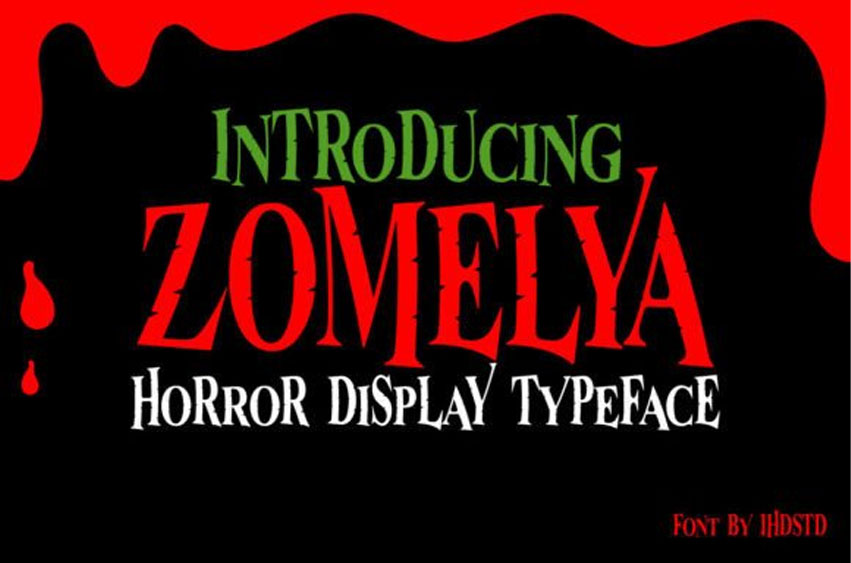
Zomelya Font is a chilling horror display font with jagged serifs and unsettling elegance, perfect for spooky season designs. Its sharp edges and distorted forms scream Halloween, haunted houses, and thriller themes.
Great for posters, horror movie titles, party invites, escape rooms, or eerie packaging – Zomelya turns any message into a scream. With a classic horror vibe and modern flair, this typeface is your go-to for spine-tingling visuals.